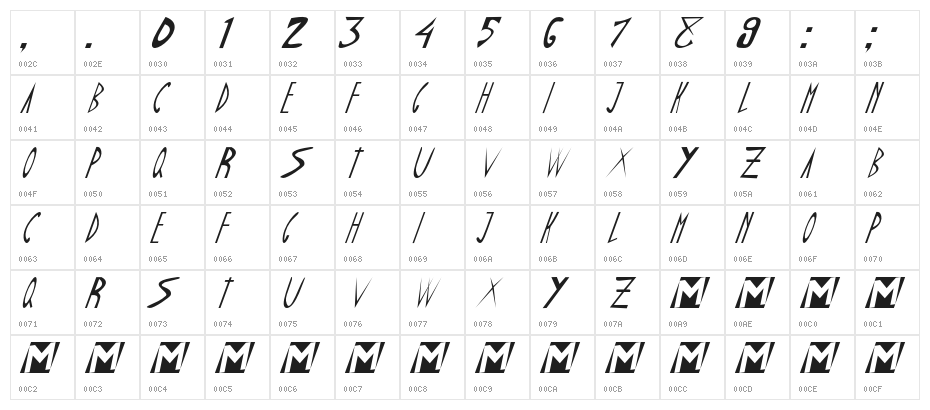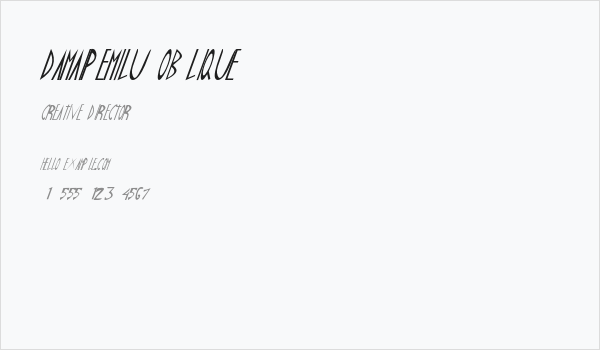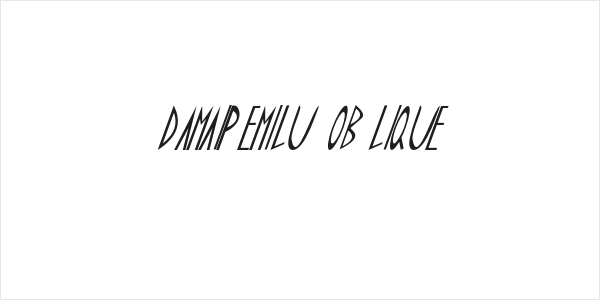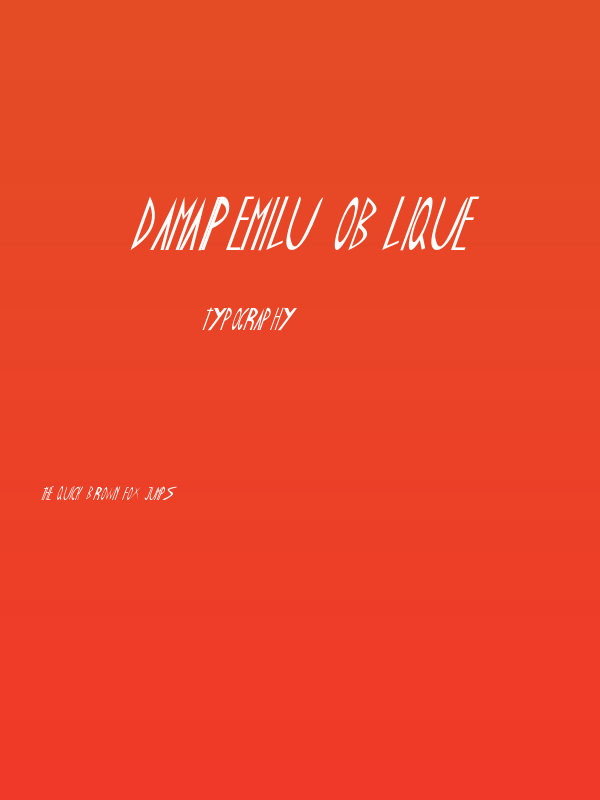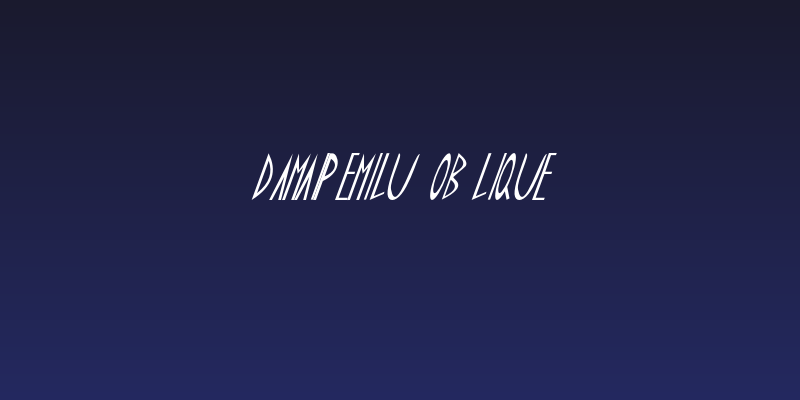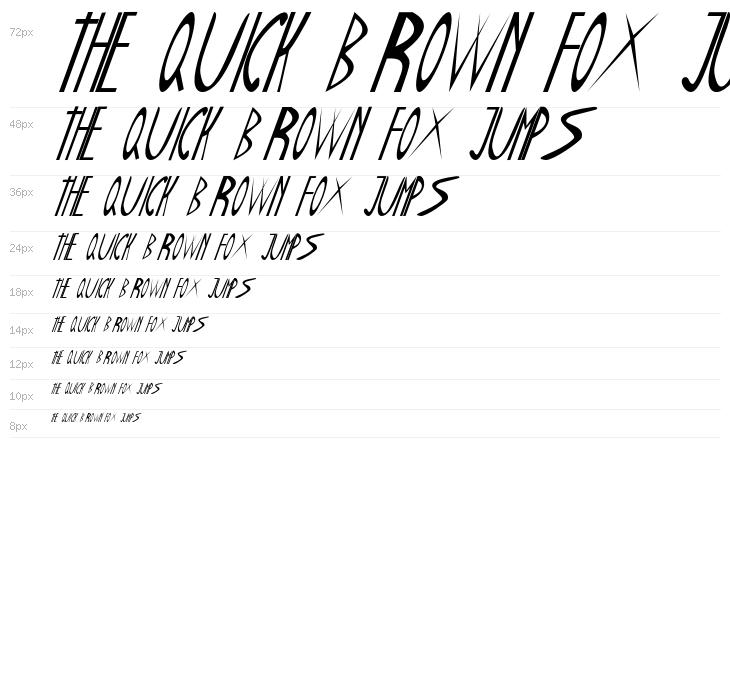
DAMAIPEMILU-Oblique Font
DAMAIPEMILU-Oblique Description
This font exhibits a dynamic and energetic style with its oblique orientation and sharp, angular lines. The uppercase letters are elongated and lean forward, giving a sense of motion and speed. The lowercase letters maintain this slanted style, creating a cohesive look throughout. The numbers follow the same design principles, ensuring consistency. The font's bold strokes and high contrast between thick and thin lines make it stand out, while the unique shapes of certain characters, like 'Q' and 'R', add a distinctive flair. It's a modern and edgy typeface that captures attention.
Proposed ProjectsIdeal for sports branding, dynamic posters, modern advertising, and any project needing a bold, energetic typeface.